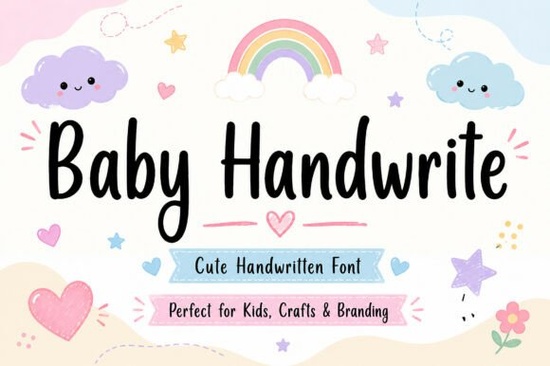
If you've been searching for a Baby Handwrite font that actually looks like a child wrote it not a font that's just rounded and called "kid-friendly" this one delivers. Baby Handwrite is a sweet handwritten typeface that captures the playful, unpolished charm of real children's lettering. It's a great fit for baby shower invitations, nursery wall art, kids' product packaging, and similar projects where warmth and personality matter more than precision.
What makes this font feel like real kids' handwriting?
Plenty of fonts claim to look handwritten, but most end up feeling either too perfect or too messy. Baby Handwrite sits in a comfortable middle ground. The letterforms have a natural wobble and unevenness that mimics how young children actually form letters without crossing into illegibility.
A few things stand out:
- Clean baselines with gentle variation in letter height and spacing
- Rounded edges that feel soft and friendly
- Consistent weight that keeps text readable at small sizes
- Natural irregularity that avoids looking mechanical or templated
This balance is what makes it versatile. It works for formal baby announcements and casual social media posts alike.
Where does a kids' handwriting font work best?
Designers, crafters, and print-on-demand sellers reach for fonts like this across a wide range of projects. Here are some of the most common uses:
- Baby shower and birthday invitations the playful style sets the right tone immediately
- Nursery decor and wall prints soft, hand-lettered quotes look beautiful on canvas or framed prints
- Kids' clothing and accessories POD sellers use it for onesies, bibs, and tote bag designs
- Packaging and labels small businesses selling baby products or baked goods use it for a homemade, trustworthy feel
- Social media graphics blog headers, Instagram posts, and Pinterest pins with a warm, approachable look
- Scrapbooking and journaling digital and paper crafters love how it complements photos and stickers
Because the style is friendly without being too cartoonish, it also works well for teacher resources, daycare branding, and pediatric business cards.
Does it hold up in both print and digital projects?
Yes, and that's an important detail. Some decorative handwritten fonts look great on screen but fall apart in print thin strokes disappear, spacing gets awkward, or the overall texture becomes noisy at smaller sizes.
Baby Handwrite maintains strong readability across formats. At large sizes, the handwriting character really shines. At smaller sizes (think body text on a flyer or product tag), the clean construction keeps everything legible. This makes it practical for:
- Print-on-demand product mockups and final files
- Digital invitations sent via email or messaging apps
- Website banners and blog graphics
- Physical packaging and printed labels
How does it compare to other handwritten and script fonts?
If you're building a font library, it helps to understand where Baby Handwrite fits alongside other styles. Here's a quick comparison:
- Sweetica another playful option with a bolder, more decorative feel. Good for headers and display text.
- Dellanor Script a flowing, elegant script better suited for wedding stationery or feminine branding. If you need something more refined and script-based, this is worth a look.
- Cralione Script a modern calligraphy style with connecting letters. It pairs well with clean sans-serifs and works beautifully for logo design and elegant headers.
- Allura Signature a classic signature font with smooth, flowing strokes. Ideal if you want a polished handwritten signature look for branding or correspondence.
Each of these fills a different role. Baby Handwrite specifically targets child-centered, family-friendly designs where the tone is warm and casual rather than sophisticated or formal.
Is it worth adding to your font collection?
If you regularly work on baby, kids, or family-themed projects, a good children's handwriting font is hard to substitute. You could try using a generic rounded font, but it won't have the same organic, hand-drawn quality. Baby Handwrite gives you that authentic, scribbled-on-a-napkin charm that resonates with parents and gift-givers.